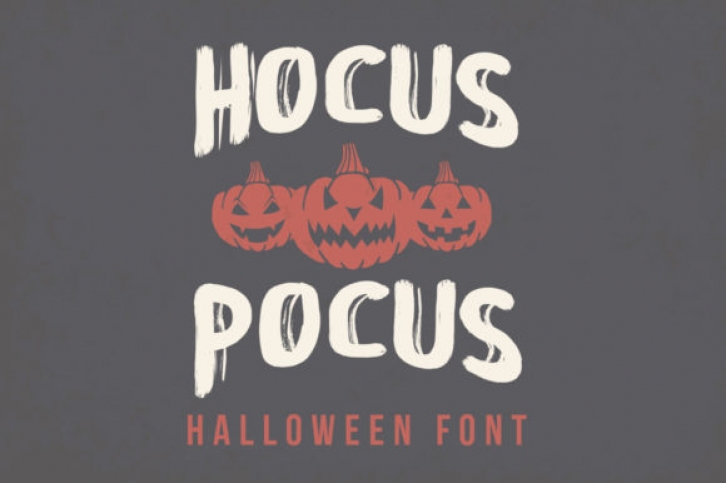
Hocus Focus is a simple display font, carefully handcrafted to become a true favorite. Spooky and unique, it will be the perfect choice for each of your Halloween designs!